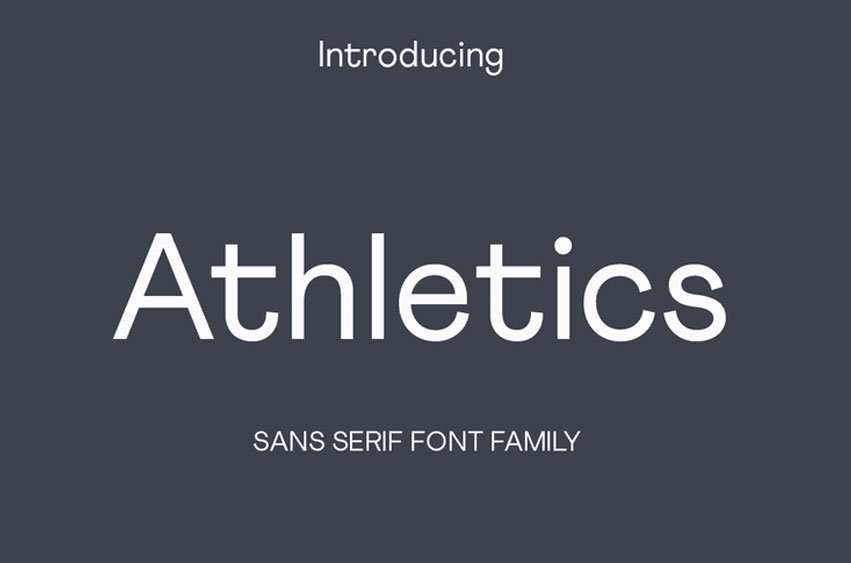
Athletics Font
Athletics Font is an unilinear sans serif font designed to push boundaries.
Extended strokes, asymmetrical curvatures and narrow apertures come together in this distinctive yet practical typeface.